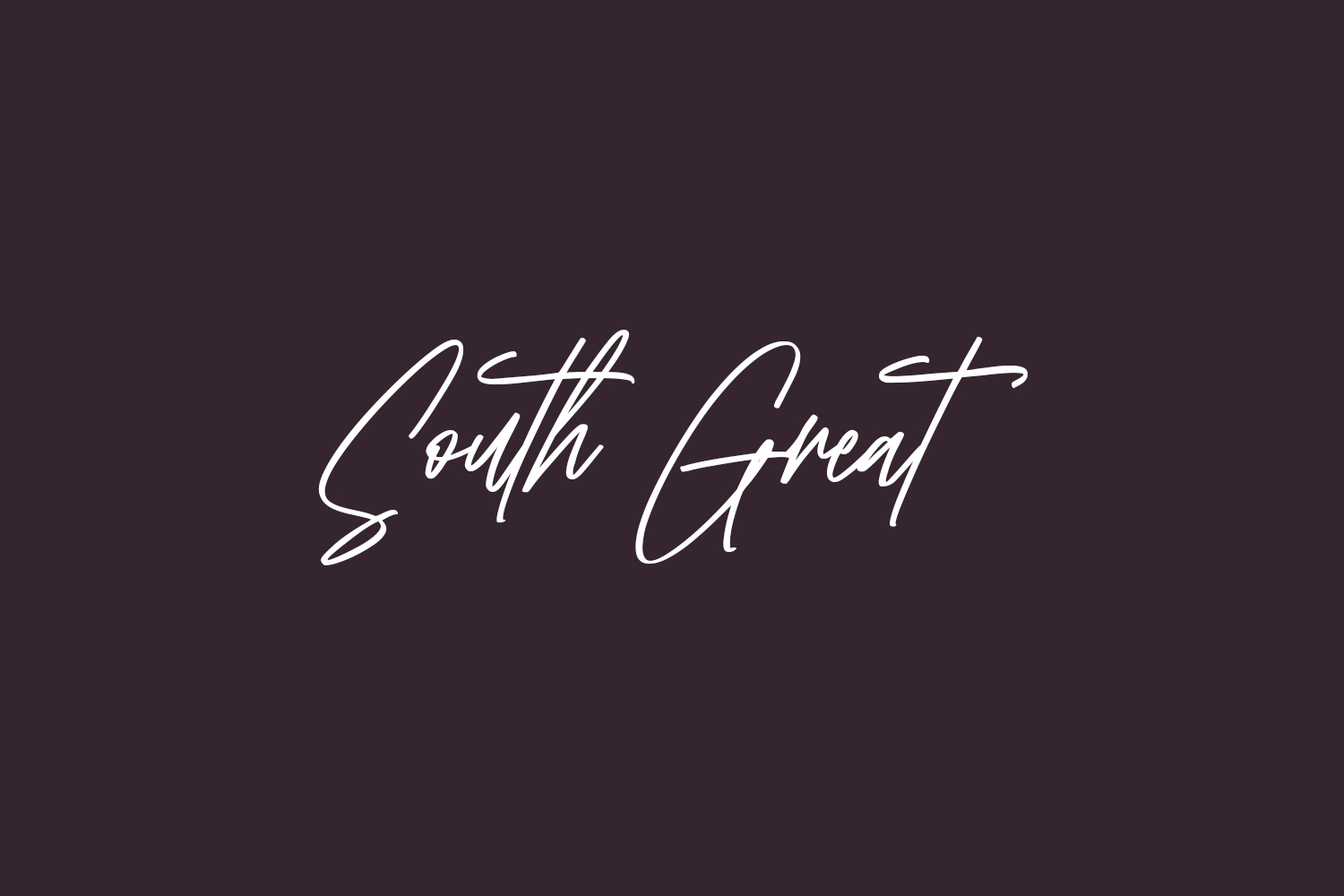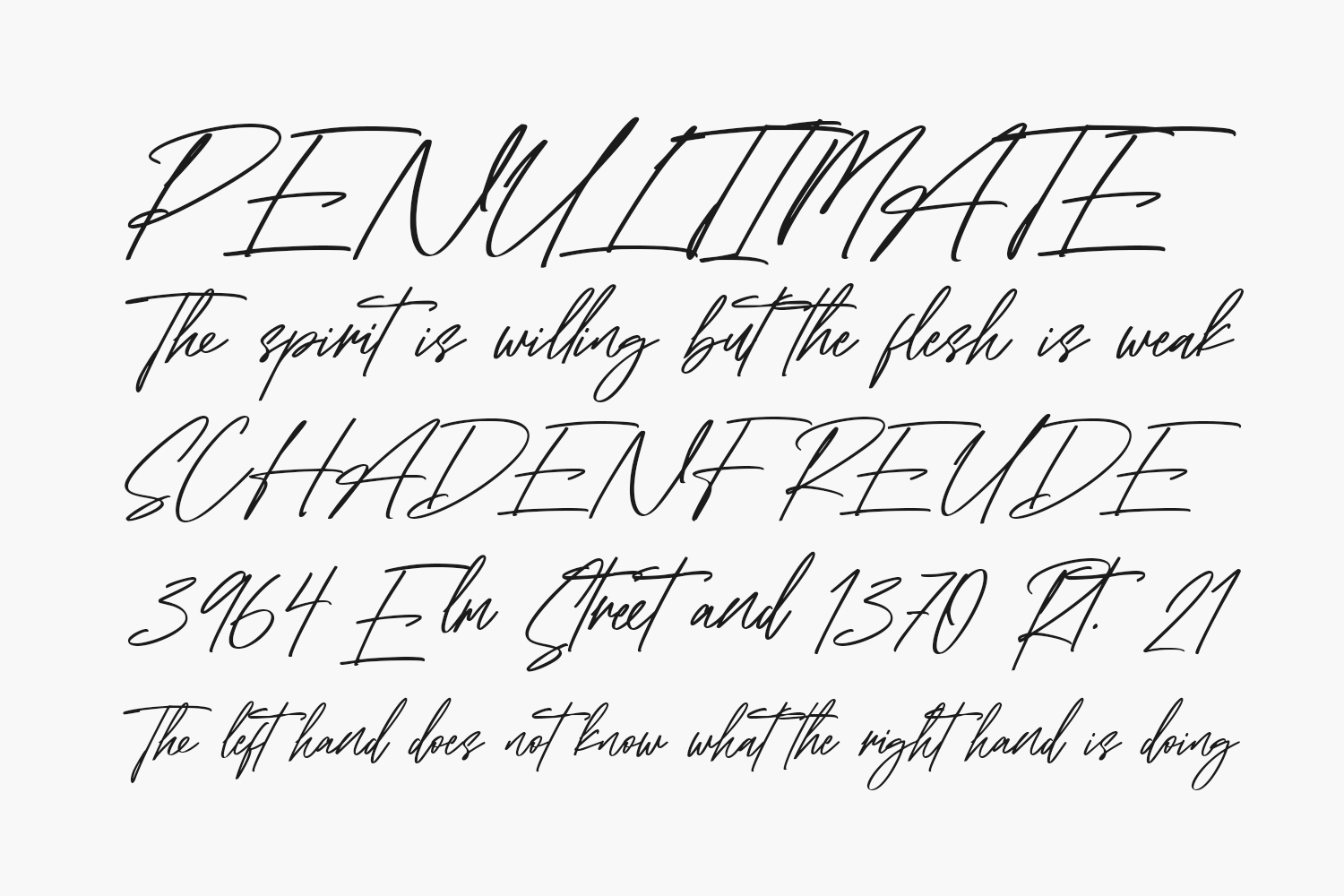
South Great Free Font is an exquisite and beautifully crafted handwritten font that adds a touch of personality and charm to any design. Its organic lines and flowing letterforms give each design a warm and welcoming feel. It makes it ideal for greeting cards, invitations, and other projects that require a touch of elegance. The font’s unique texture and hand-drawn. It feels makes it a versatile choice for designers looking to add a touch of creativity and authenticity to their work. Whether used for print or digital designs, South Great Free Font is a font of distinction, perfect for creating projects that demand a touch of humanity and personality.